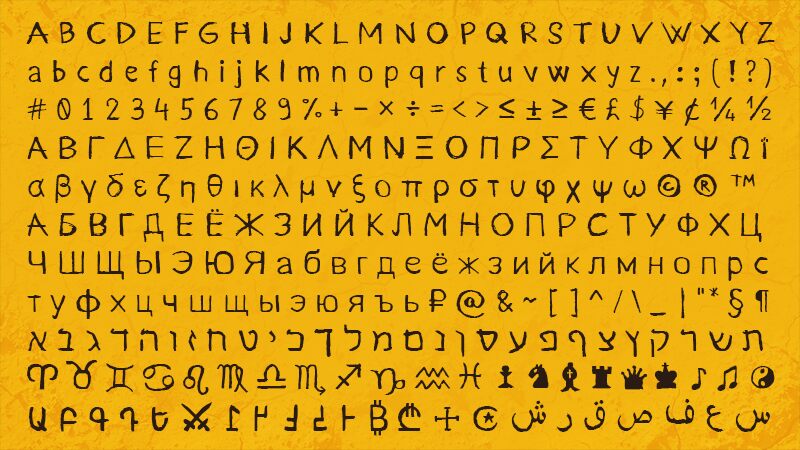
Kurland
Kurland, a masterpiece from the creative mind of GGBotNet, is a brush-style font that exudes artistic flair. Its strokes bear the spontaneous and energetic qualities of hand-painted letters, making Kurland not just a typeface but an expression of raw creativity. The uneven thickness of its lines captures the authentic dynamics of a brush gliding across a canvas, while each character maintains legible form.
The aesthetic appeal of Kurland lies in its ability to add personality to any design project. It strikes an intriguing balance between casual charm and sophisticated artistry-perfect for projects that require a personal touch without sacrificing elegance. Whether it's branding, advertising, or editorial design, Kurland is versatile enough to inject life into words and make messages resonate with viewers on a more emotional level.